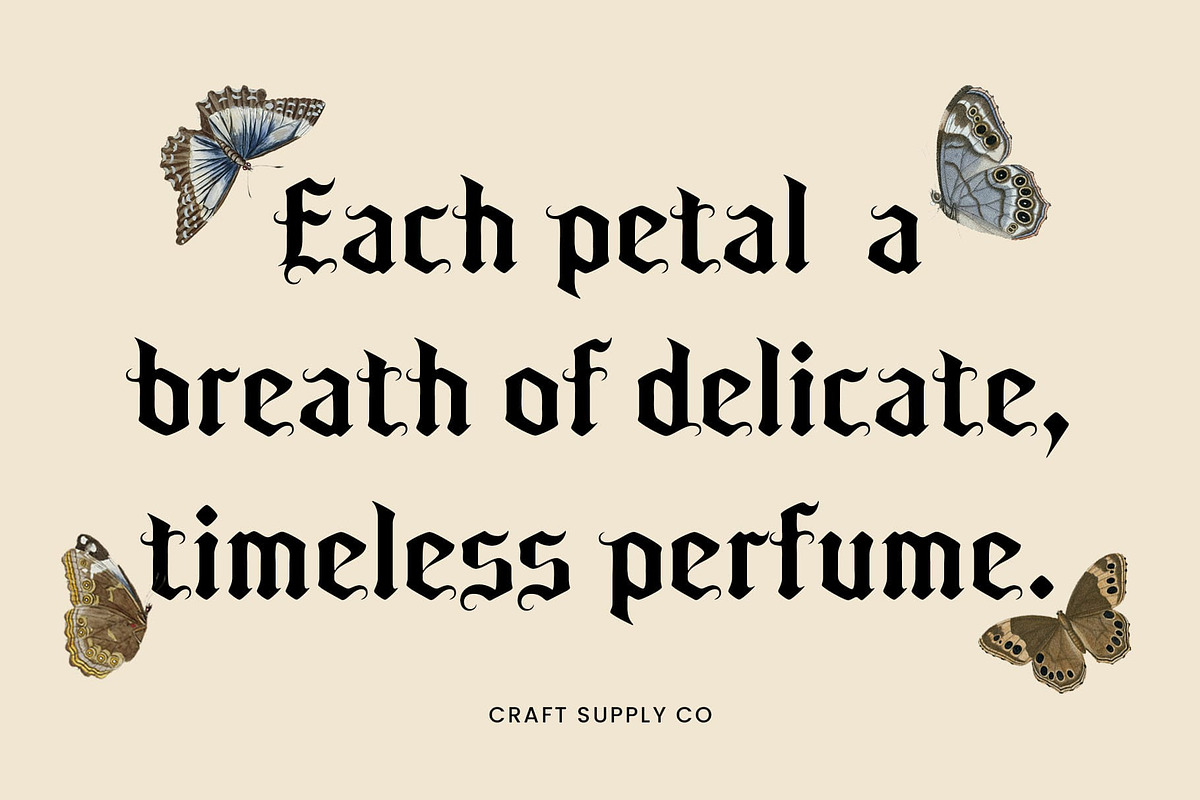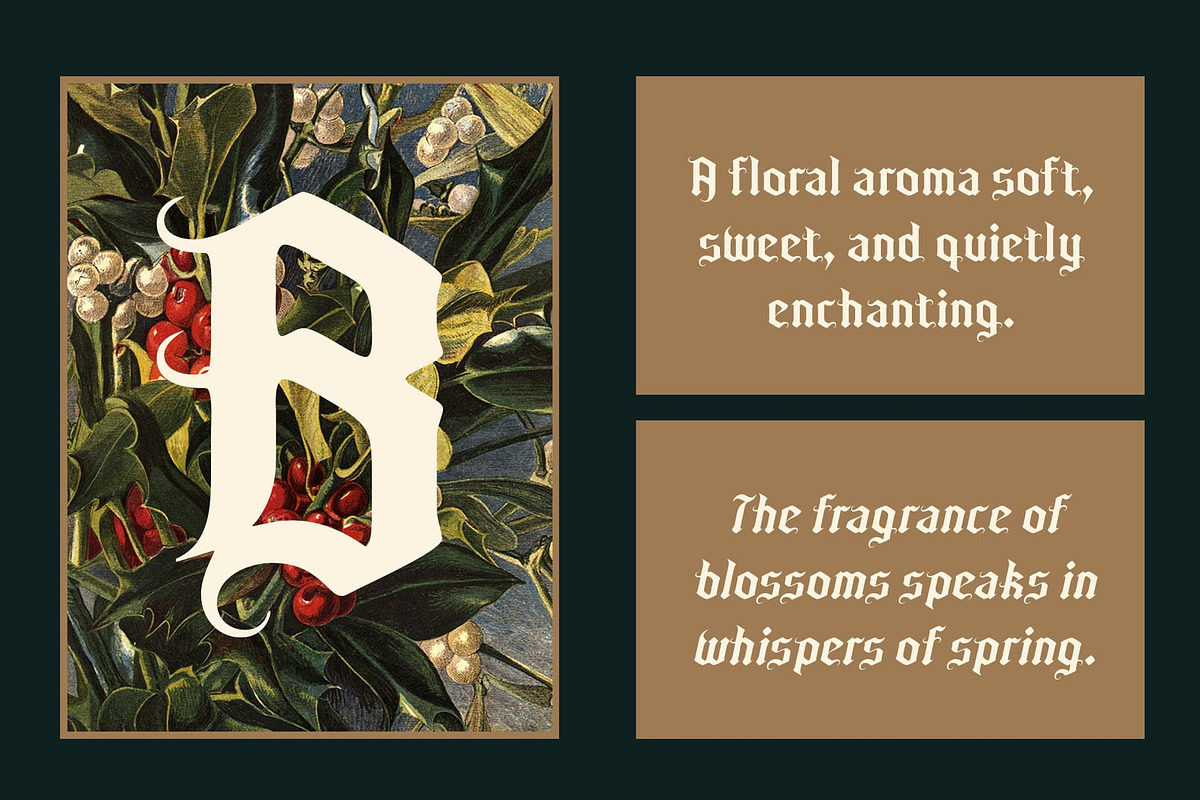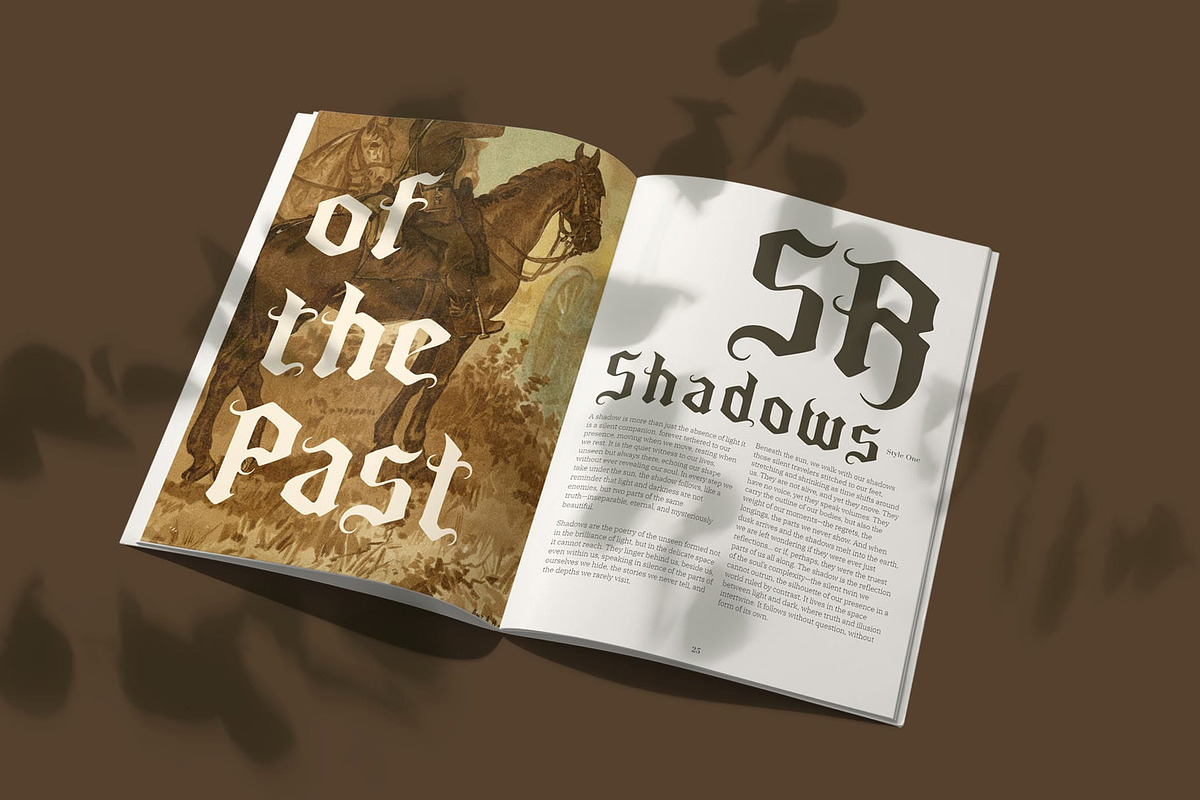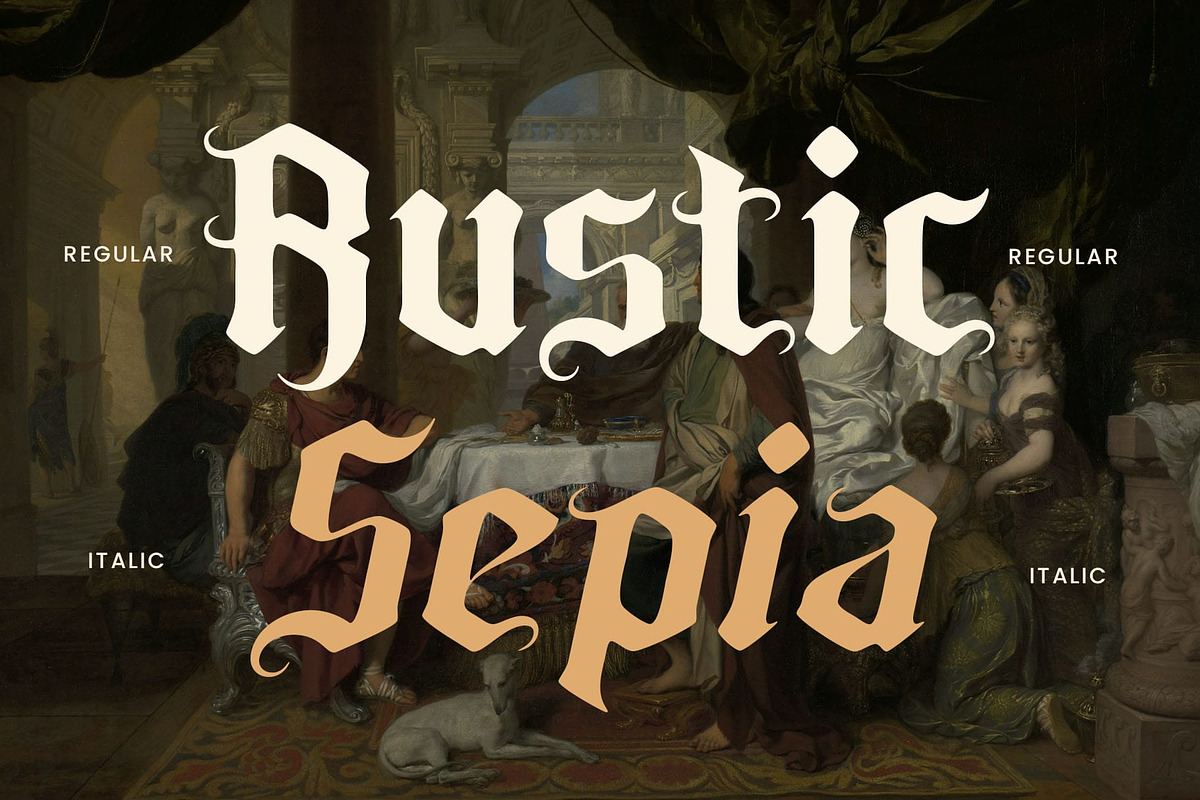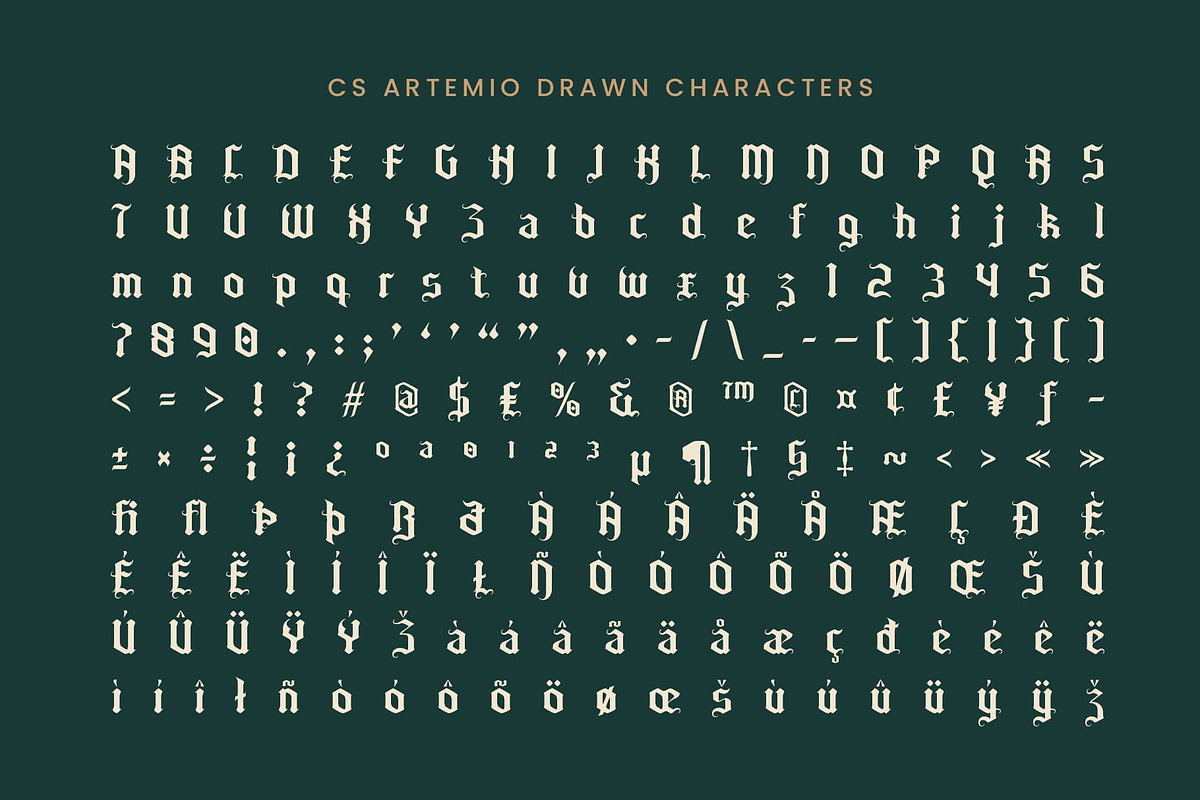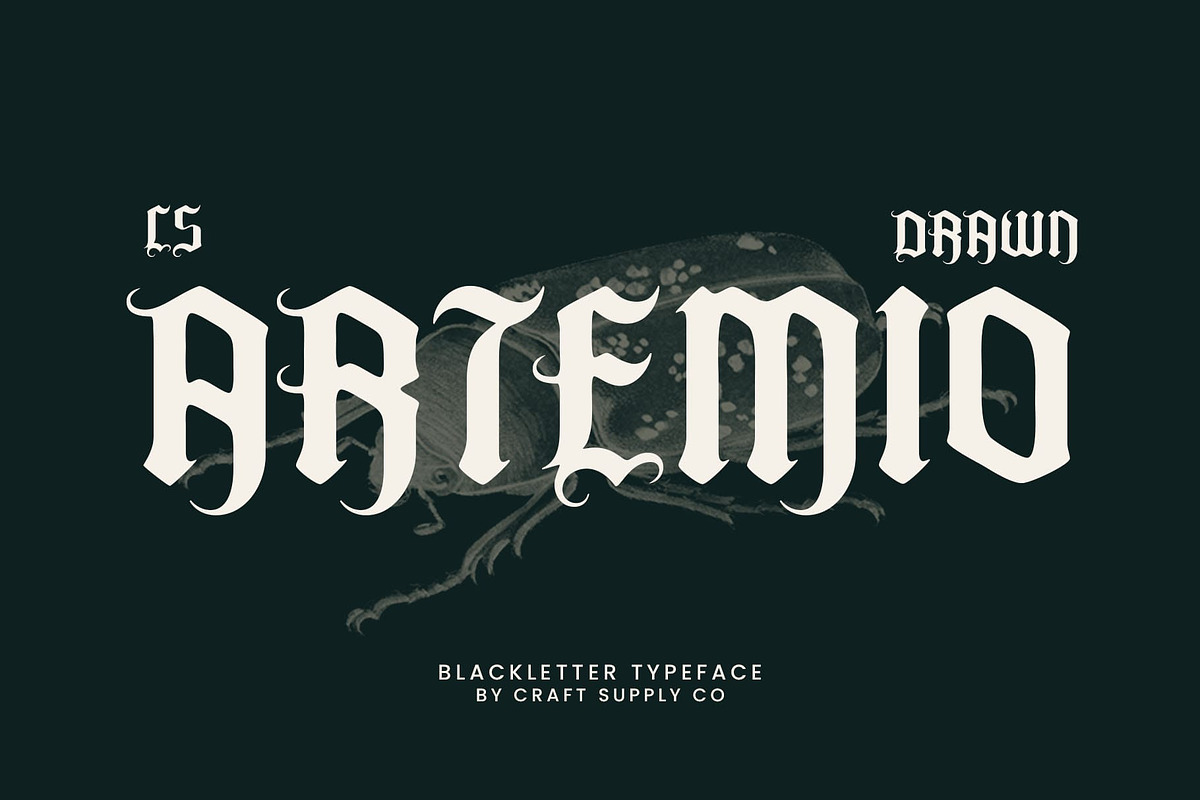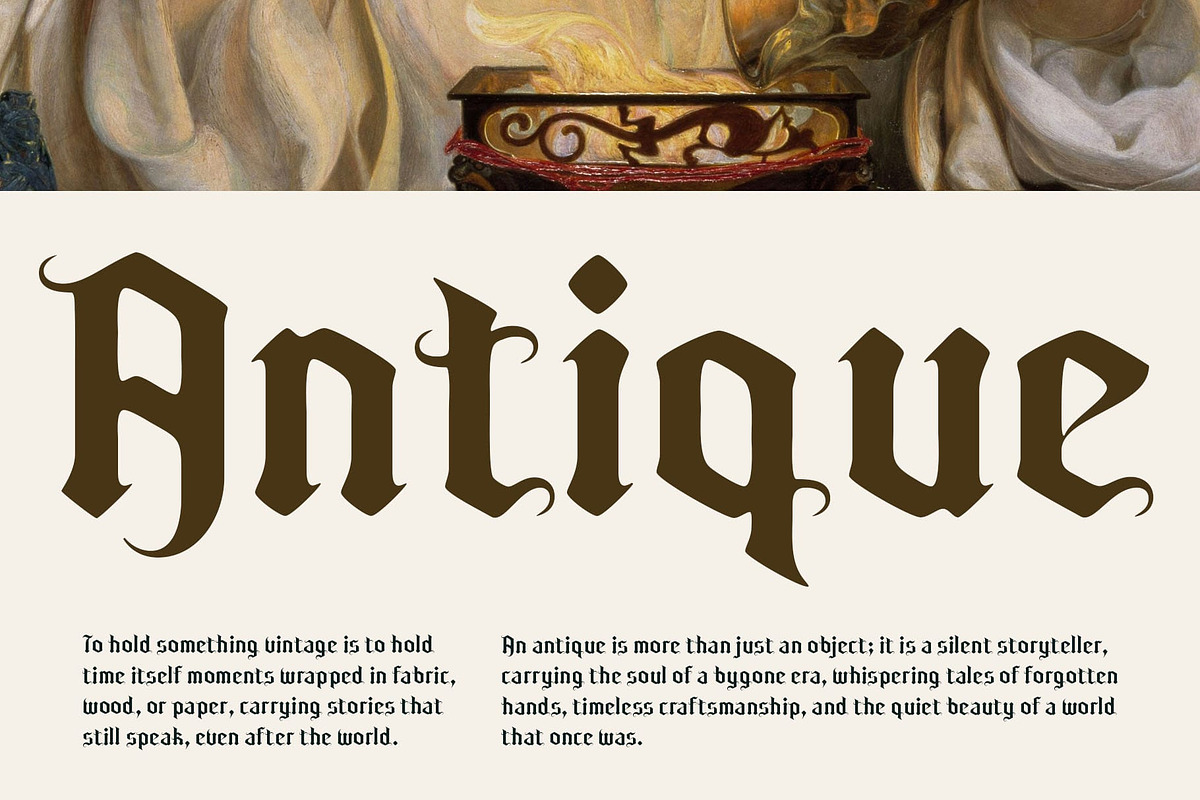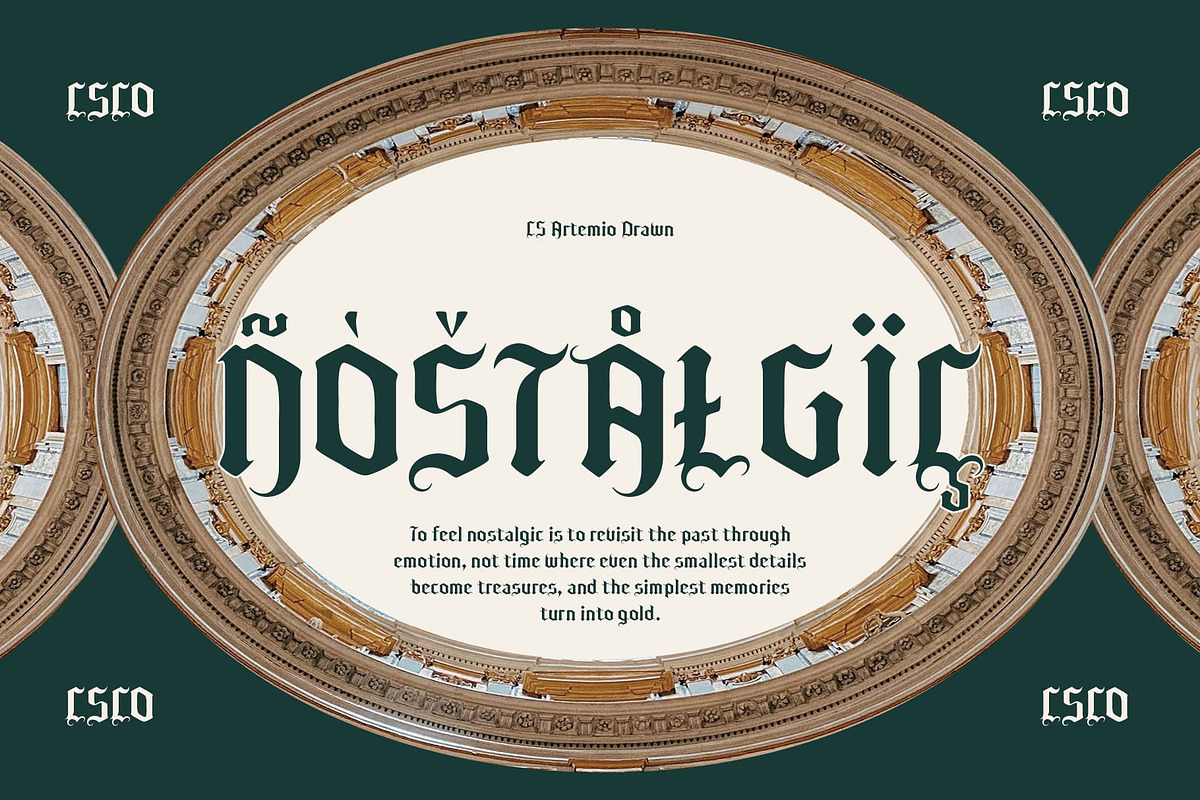
CS Artemio Drawn
CS Artemio Drawn: Where Gothic Boldness Meets Artistic Texture
Modern Gothic Style with a Dramatic Edge CS Artemio Drawn is a display font that embraces modern gothic influences, delivering sharp, high-contrast letterforms with a commanding presence. Its dramatic style evokes intensity and sophistication, perfect for designs that seek to convey power, elegance, or mystery.
Expressive Drawn Texture for Visual Depth What sets this modern font apart is its hand-drawn effect layered onto its gothic structure. This artistic texture introduces organic imperfections that add richness, depth, and a human touch to the bold forms. The result is a striking balance between precision and expression—ideal for artwork that demands individuality.
Perfect for Dark-Themed and Creative Projects With its bold character and textured details, this modern gothic font is an excellent choice for dark-themed designs, artistic editorials, fashion branding, and experimental visual projects. Whether you’re designing posters, book covers, or alternative brand identities, this font ensures your message is delivered with impact and distinct style.
A Bold Statement in Every Letter Each character in this modern gothic font makes a strong visual statement, combining gothic drama with hand-drawn nuance. It’s a font crafted for creatives who want to defy convention and express bold ideas through typography that’s both edgy and artistic.